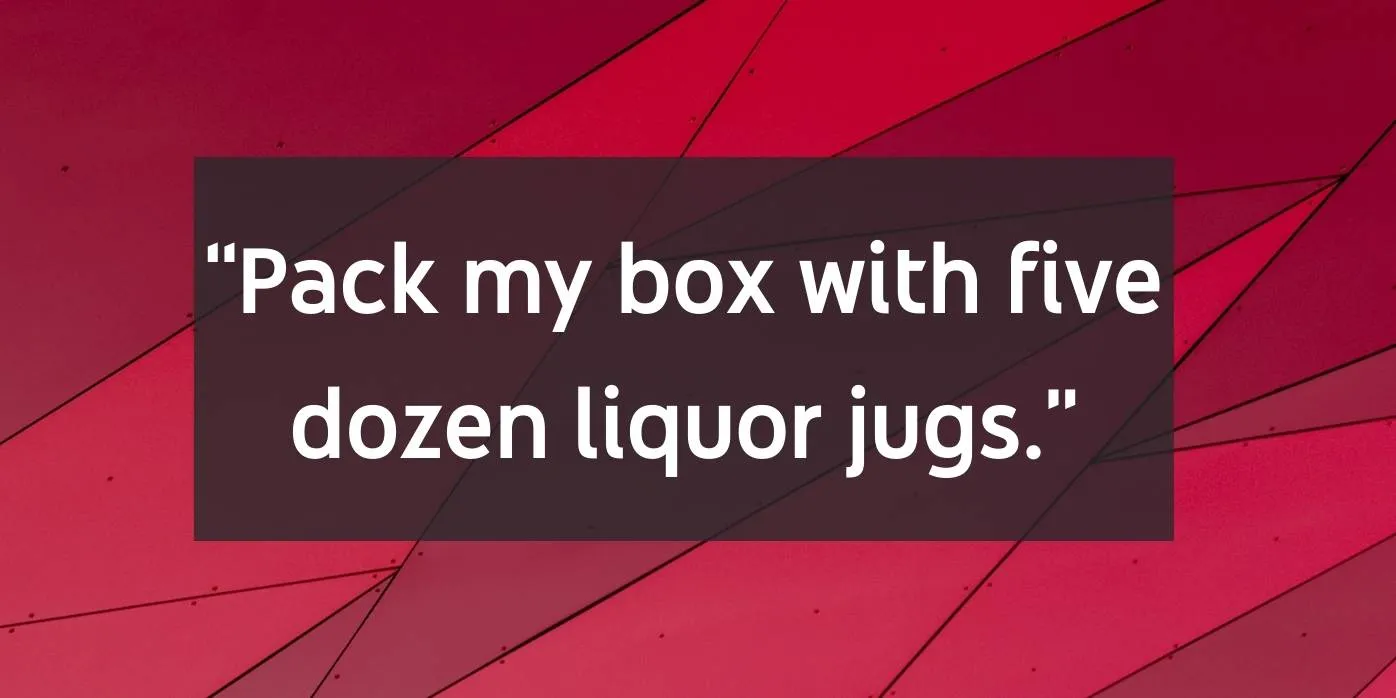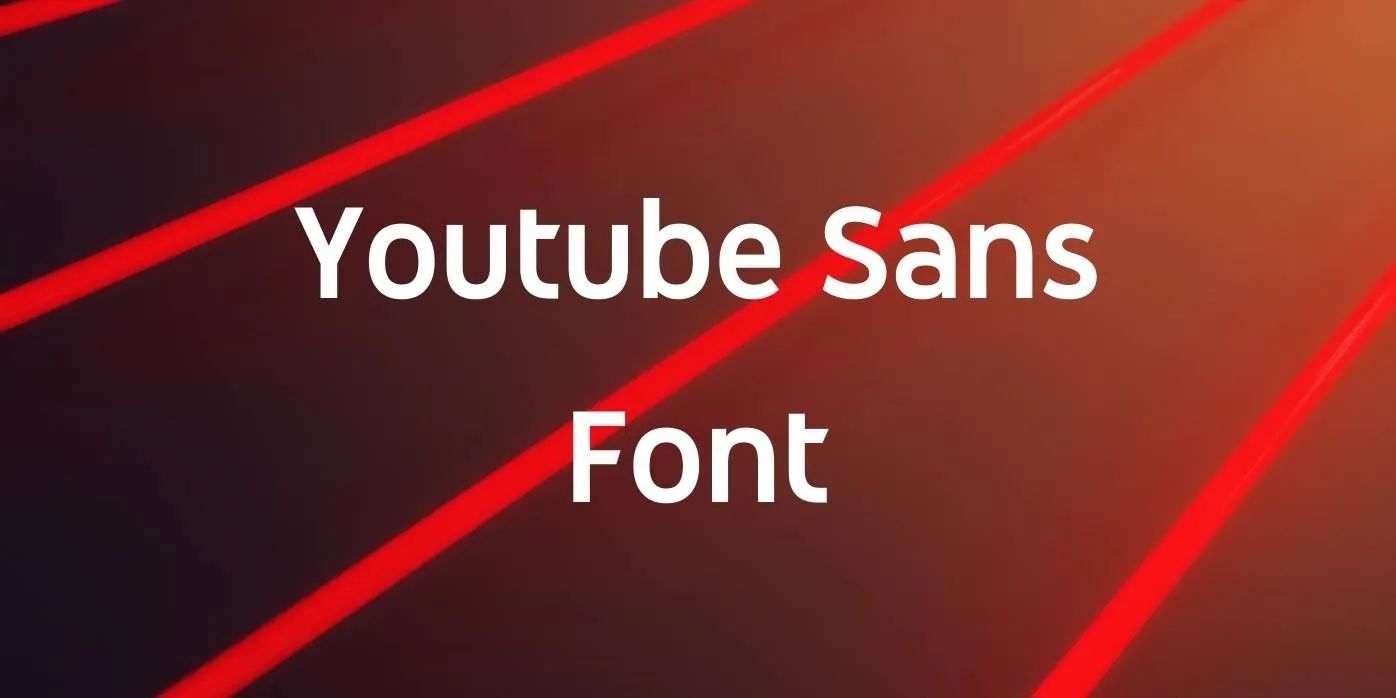
Youtube Sans Font
Youtube sans font is designed by Google Designs. This cozy typeface belongs to the Sans-Serif typeface. It is a very clean typeface with a modern feel, perfect for headlines and titles. This classy font is one of the newer fonts released by Google and has been growing in popularity since its release.
This marvelous font was designed to be easy to read on screens, making it perfect for digital media. It’s also a great choice for large blocks of text as it’s very legible. This stunning font is perfect for branding and headings and looks great when paired with other Google fonts. Its copy and paste function is best.
Cocogoose Font is similar to this typeface. If you’re looking for a modern, clean typeface to use in your next project, This font is definitely worth checking out for the workplace. This typeface contains a huge quantity of Glyphs and supports a wide range of Languages. This font has a very sleek and stylish design that will make your text stand out.
It’s perfect for any type of project, both personal and professional. This lovely font is definitely one to consider if you want a polished and professional look for your work.